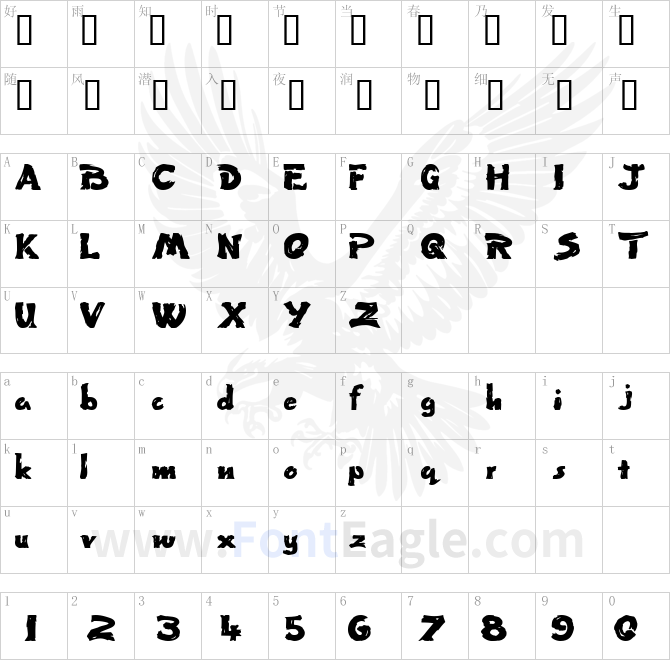
Paint-Extended-Normal-copy-1- is a great font, widely used in graphic design, single-page menu design, poster design and other fields, and is deeply loved by designers.Paint-Extended-Normal-copy-1- download.